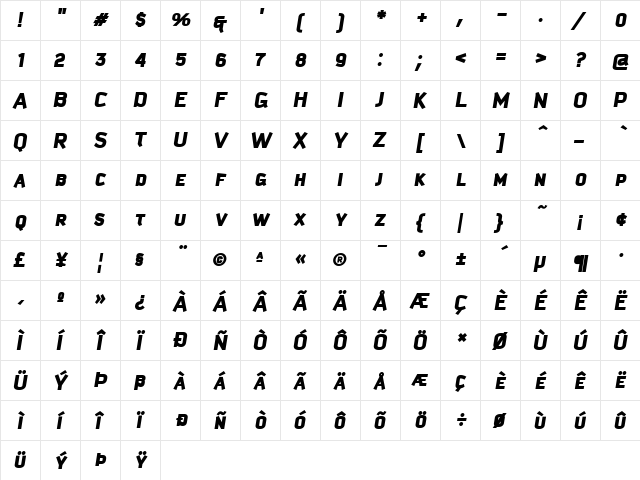
Kautiva Caps Black Italic
Design Context for Kautiva Caps Black Typeface
Kautiva Caps Black is a composed and adaptable typeface that performs quietly and consistently across a wide range of design contexts. Its italic angle brings a sense of urgency and motion to the letterforms.
Pro Tip: Use Kautiva Caps Black for emphasis, pull quotes, and subheadings where its slanted energy can add rhythm to the layout.